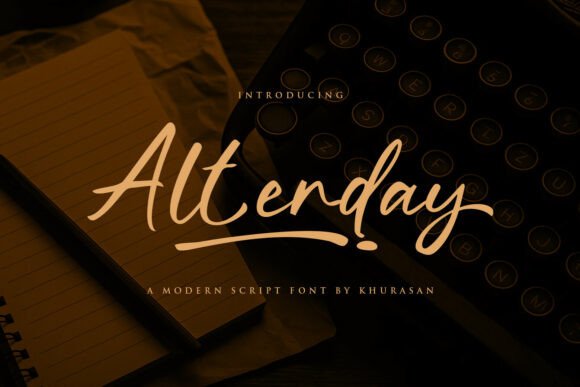
Introducing Alterday Font: Elevate Your Designs with a Modern Handwritten Script
In the world of typography, fonts play a crucial role in conveying the tone and personality of a brand or design. Among the numerous font styles available, handwritten script fonts have gained immense popularity for their ability to add a personal touch to various creative projects. One such font that has caught the attention of designers and marketers alike is Alterday Font. In this article, we’ll delve into the features, benefits, and usage of Alterday Font, exploring how it can elevate your designs and help you achieve your creative goals.
What is Alterday Font?
Alterday Font is a modern handwritten script font characterized by its clean, flowing style that mimics natural penmanship. Its elegant monoline strokes and slightly slanted letterforms give it a casual yet refined look, making it perfect for adding a personal touch to any design. The font’s versatility and legibility make it an excellent choice for a wide range of creative projects.
Where to Use Alterday Font?
Alterday Font works beautifully across various creative projects, including:
- Branding: Establish a strong brand identity with Alterday Font’s unique and elegant style.
- Blog Headers: Create eye-catching blog headers that reflect the tone and personality of your content.
- Social Media Graphics: Elevate your social media presence with custom graphics that showcase Alterday Font’s modern and refined look.
- Quotes: Add a touch of elegance to inspirational quotes and sayings.
- Invitations: Create beautiful and personalized invitations for special occasions.
- Product Packaging: Stand out in the market with custom product packaging that features Alterday Font.
- Minimalist Logos: Design sleek and contemporary logos that convey your brand’s message.
Benefits of Using Alterday Font
Alterday Font offers several benefits that make it an excellent choice for designers and marketers:
- Versatility: Alterday Font is designed to work well across various creative projects, making it a valuable addition to your font library.
- Legibility: The font’s clean and flowing style ensures that your text remains legible, even at smaller font sizes.
- Uniqueness: Alterday Font’s elegant monoline strokes and slightly slanted letterforms give it a distinctive look that sets it apart from other fonts.
- Authenticity: The font’s handwritten style adds a touch of warmth and authenticity to your designs, helping you connect with your audience.
Design Tips for Using Alterday Font
To get the most out of Alterday Font, consider the following design tips:
- Pair with contrasting fonts: Combine Alterday Font with contrasting fonts to create visual interest and hierarchy in your designs.
- Experiment with colors: Try out different color schemes to find the perfect match for your brand or design.
- Pay attention to spacing: Ensure that your text has sufficient spacing to maintain legibility and visual flow.
- Add creative touches: Use Alterday Font’s elegant monoline strokes to add creative touches, such as swashes or flourishes.
In conclusion, Alterday Font is a modern handwritten script font that offers a unique blend of elegance, versatility, and legibility. Its clean, flowing style and elegant monoline strokes make it perfect for adding a personal touch to various creative projects. By incorporating Alterday Font into your design workflow, you can elevate your designs, establish a strong brand identity, and connect with your audience on a deeper level.